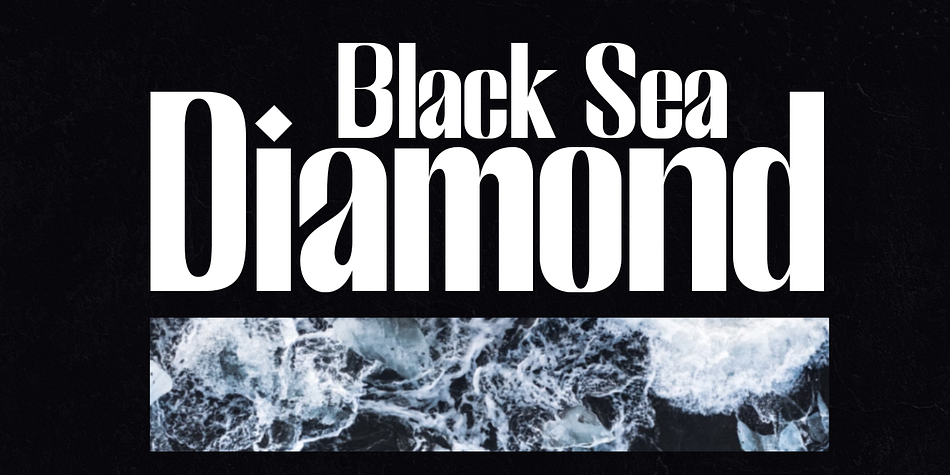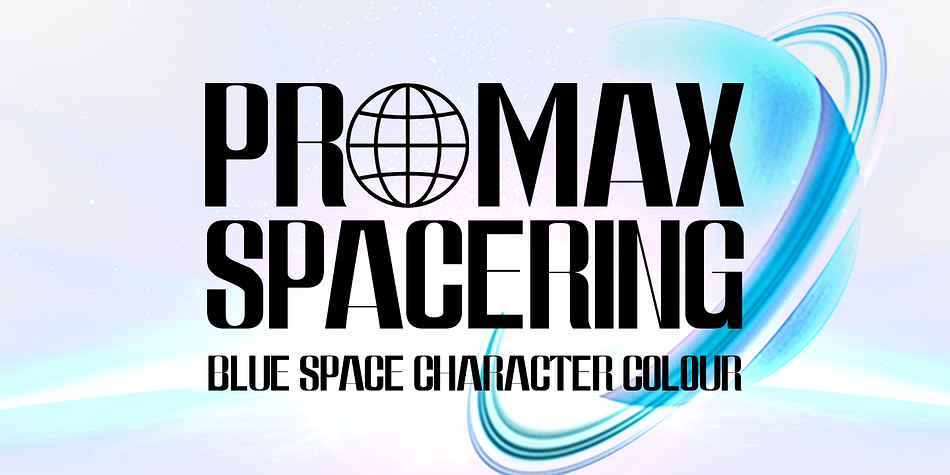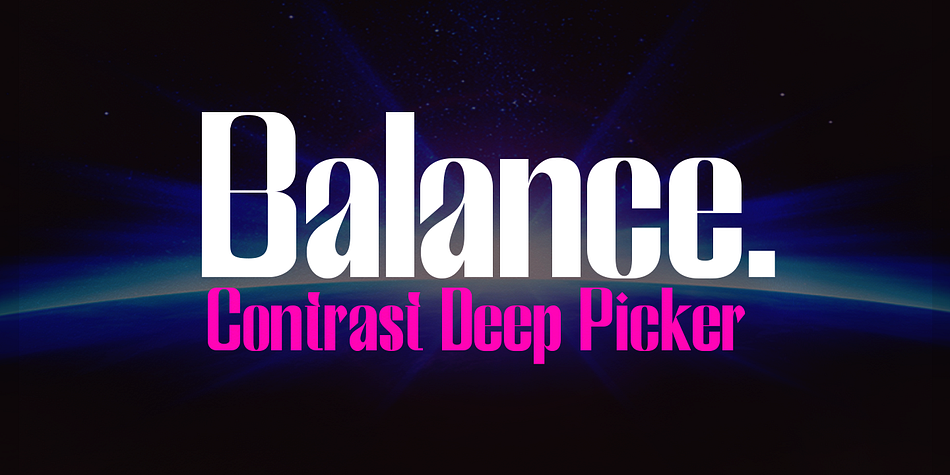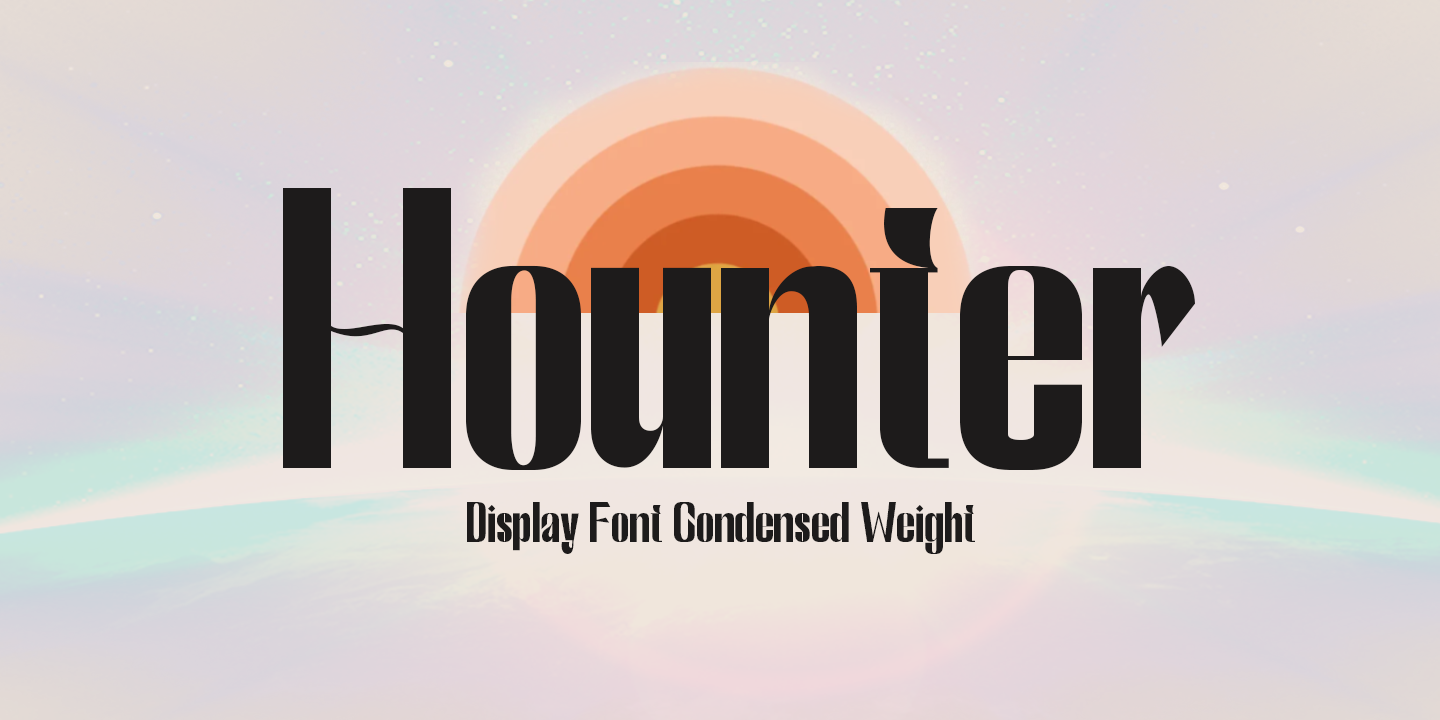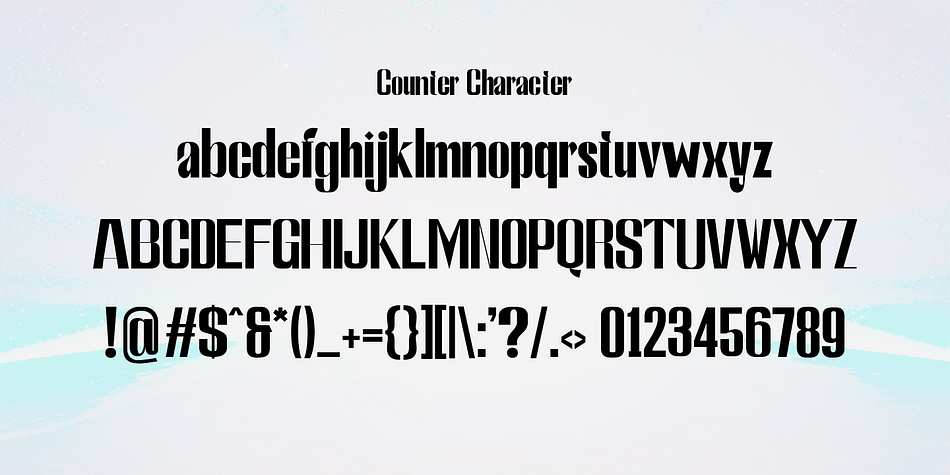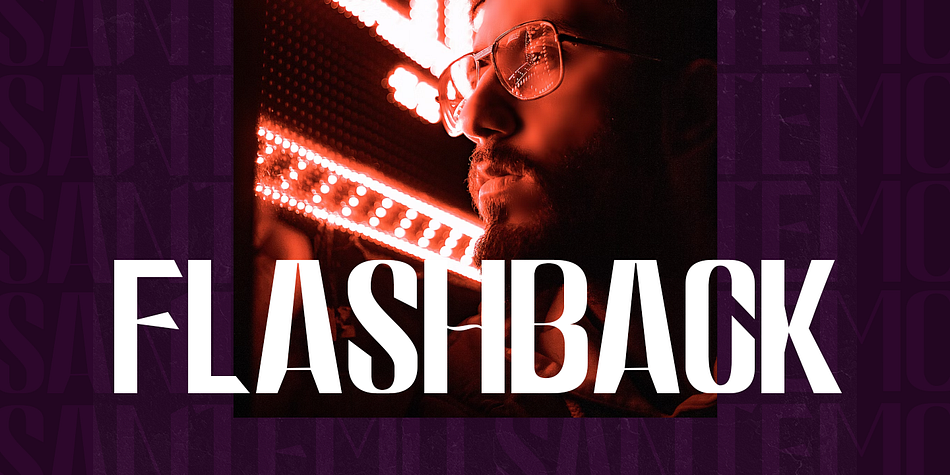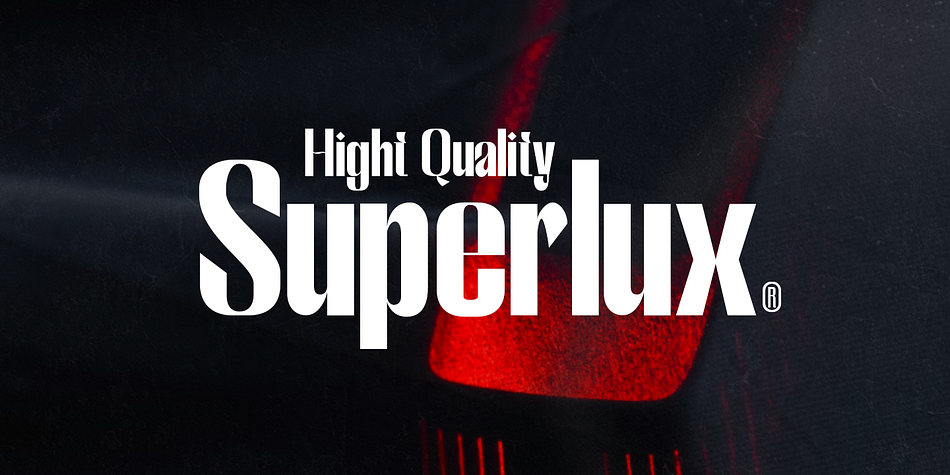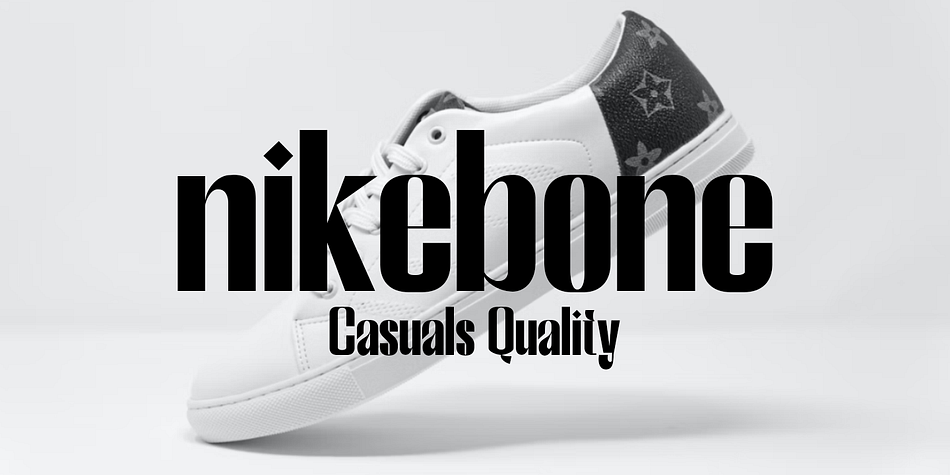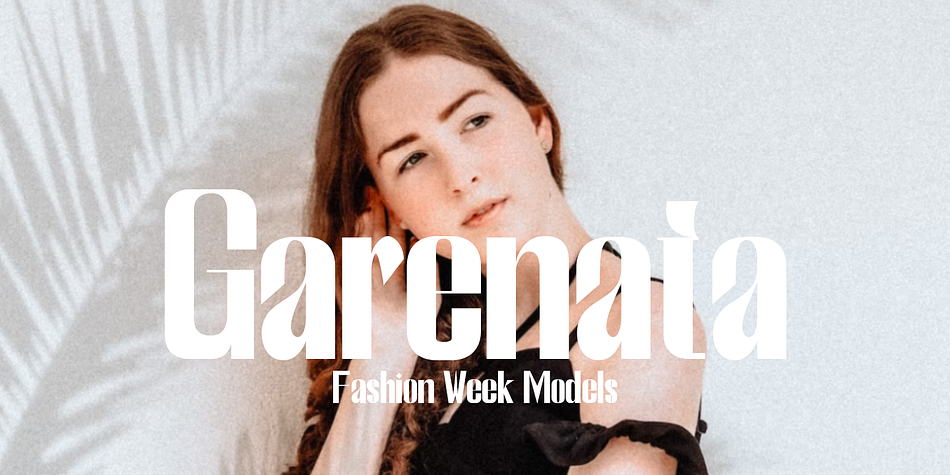
Hounter
Hounter is a display sans font family published by Gatype.
The Hounter Display is stylish with extreme cuts, sharp corners and interactive straps. Characters that seem solid are spread across each replacement letter, with different styles and maximum personality. Bold character separation and considered binding standards create a type that is sturdy, modern and attractive. suitable for logos, emblems, magazines, quotes etc.
Hounter is a modern Display font, each letter is carefully crafted to make your text look unique.